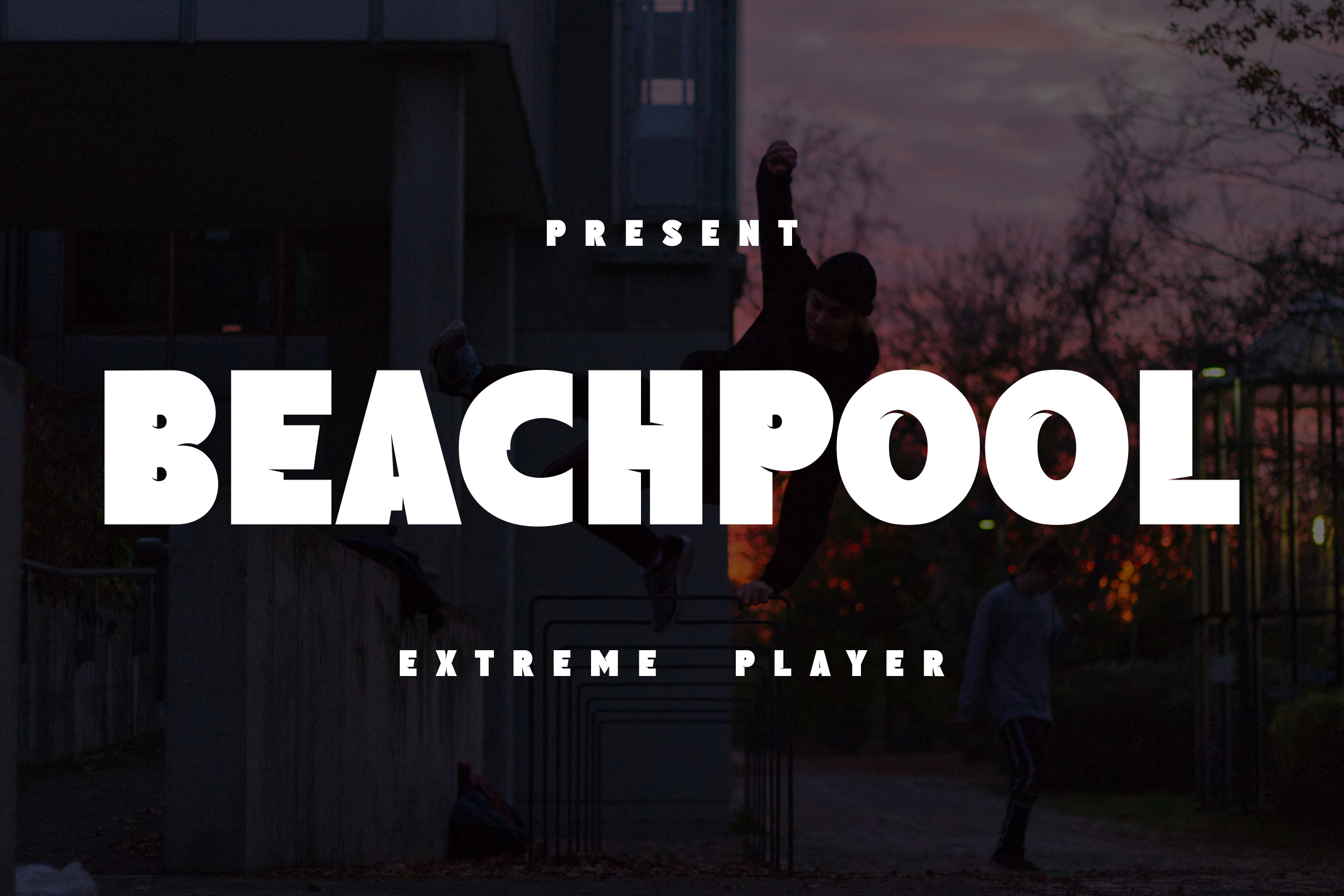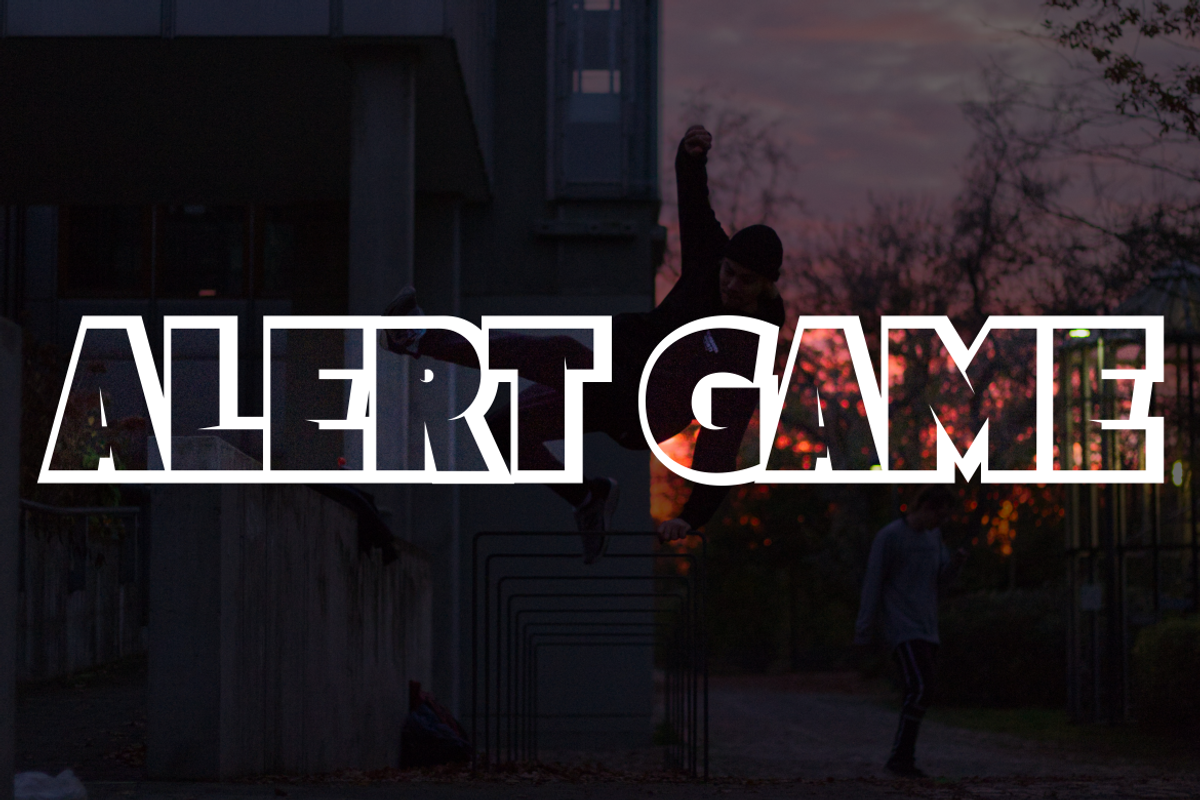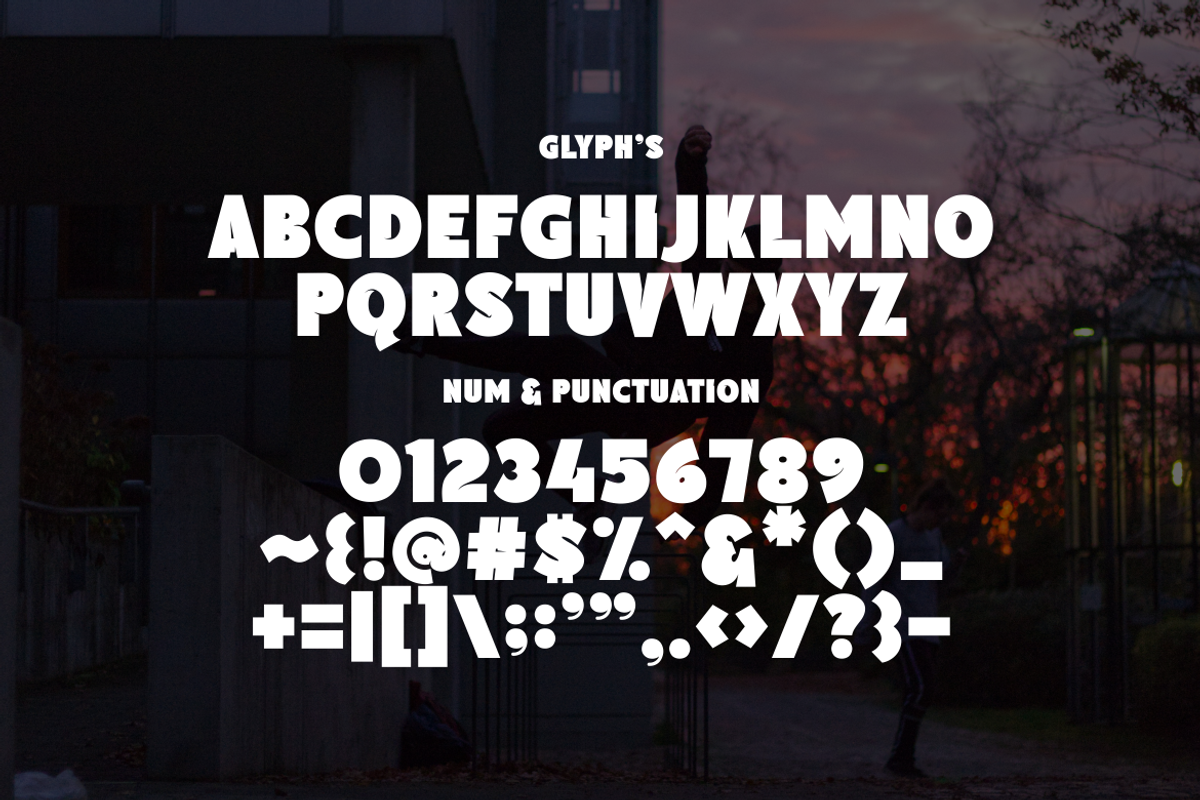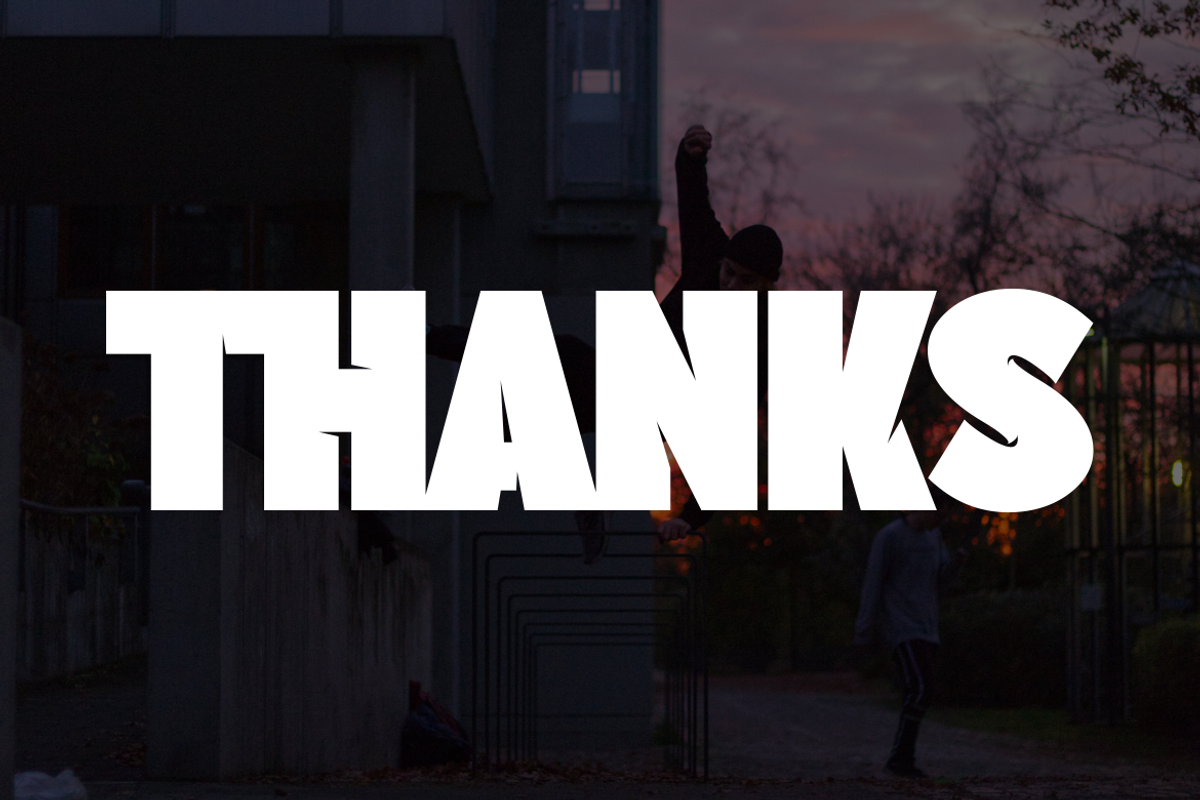
Beachpool - Extreme Man Sport Font
Beachpool is a bold, masculine font perfect for gym logos, men's products, extreme sports, and parkour brands. Strong and dynamic. Available in .OTF and .TTF formats.